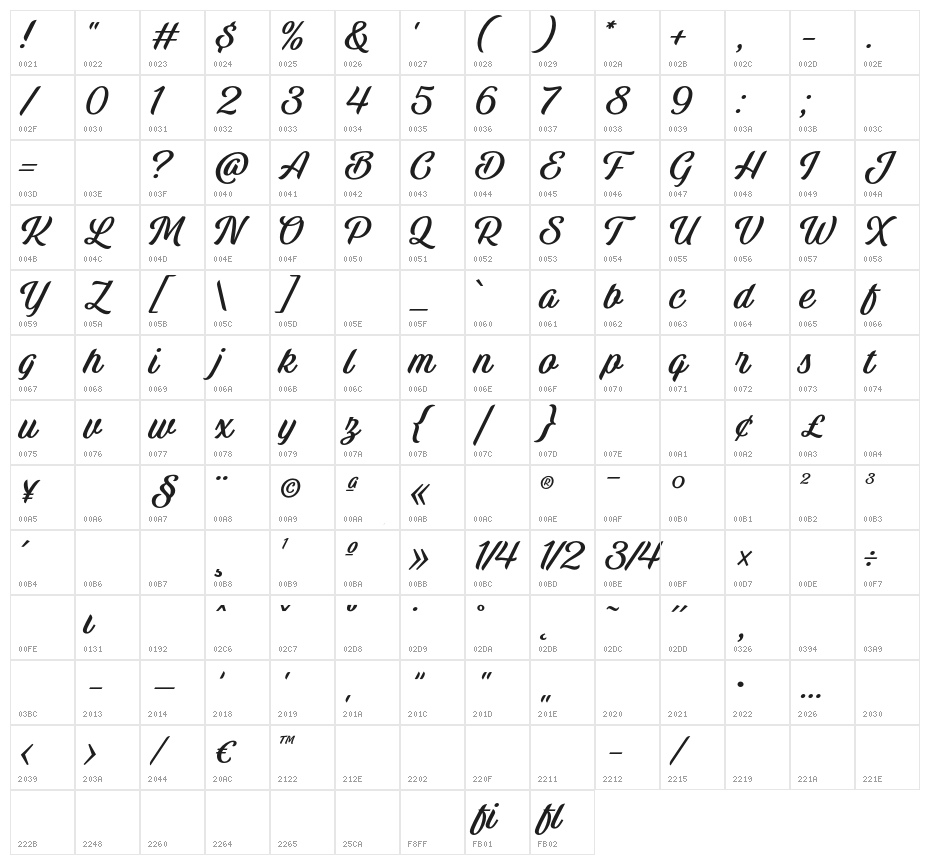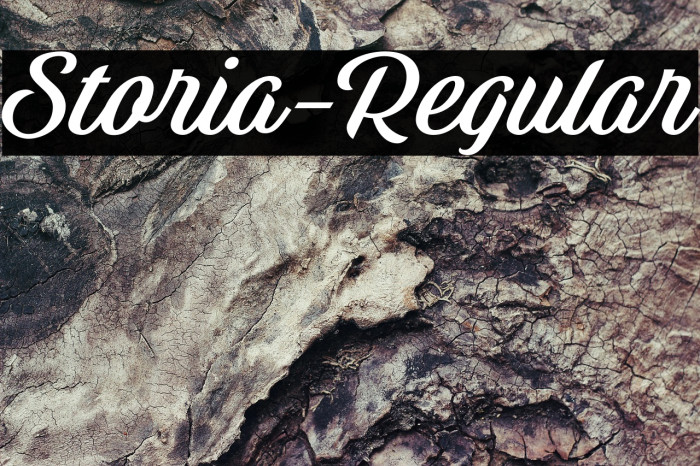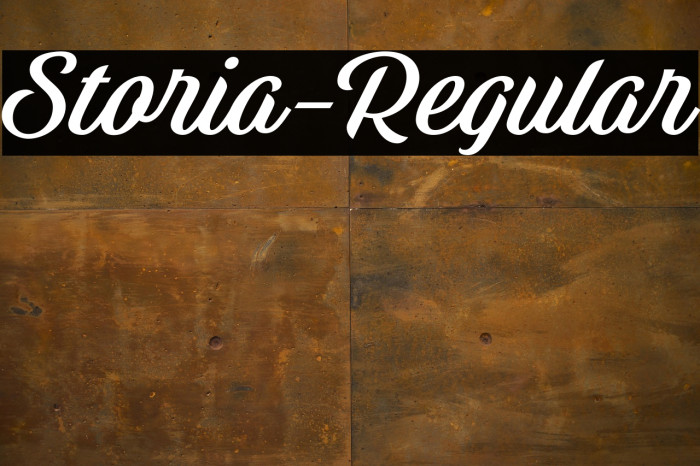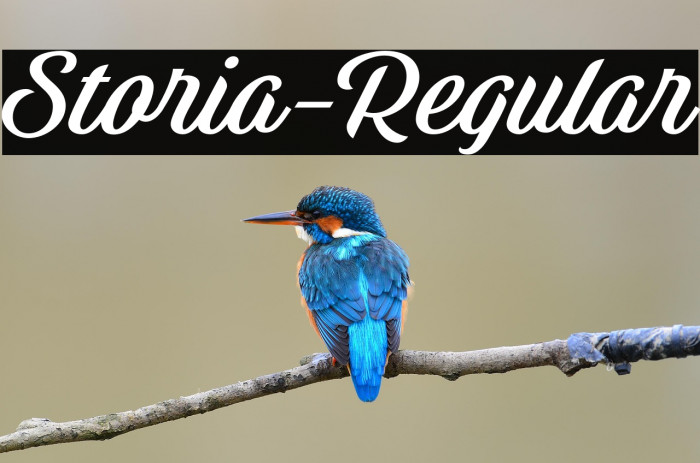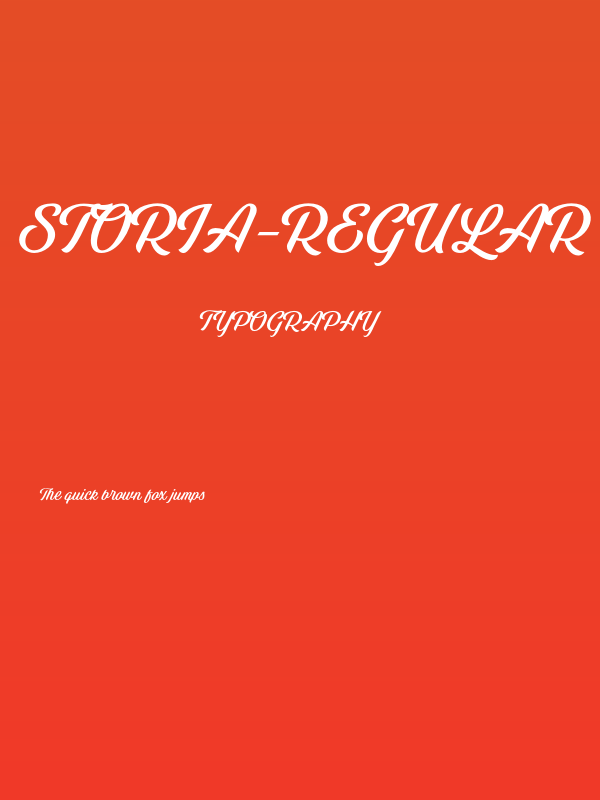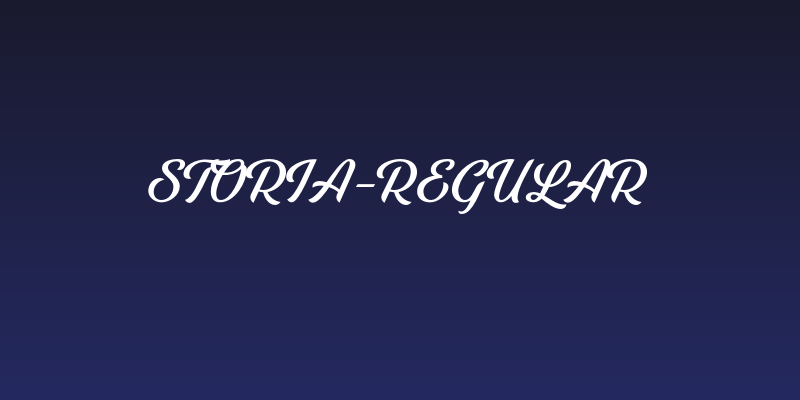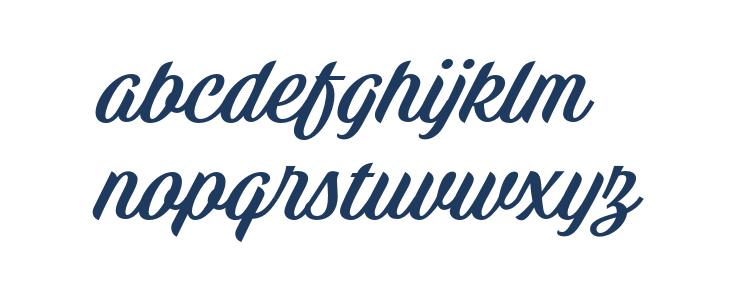
Storia-Regular Font
This font features a flowing, cursive style with elegant curves and a smooth, connected script. The uppercase letters are bold and prominent, while the lowercase letters maintain a consistent flow, creating a harmonious balance. The numerals are clear and legible, matching the overall script style. Special characters are designed to complement the letters, maintaining the font's cohesive appearance. The strokes are moderately thick, giving it a strong presence without overwhelming the eye. This font exudes a sense of elegance and sophistication, making it suitable for formal and decorative purposes.
Overall StyleElegant
Use CaseHeadlines, Logos, Invitations
Proposed ProjectsIdeal for wedding invitations, elegant branding, greeting cards, and decorative headings.